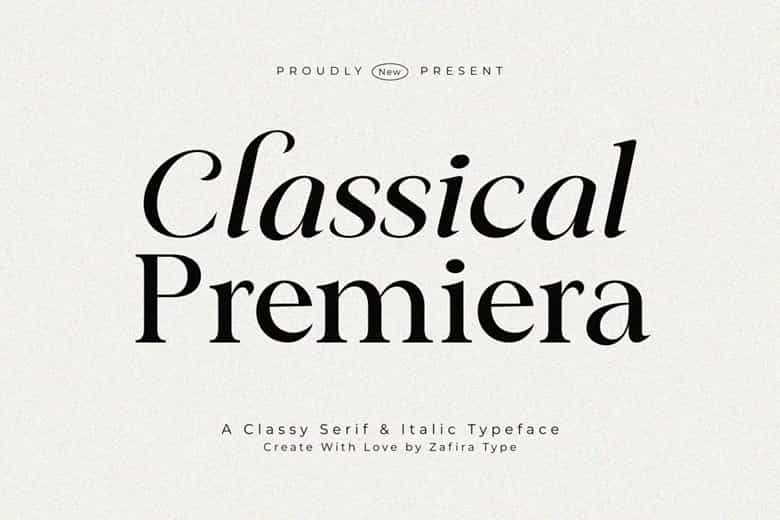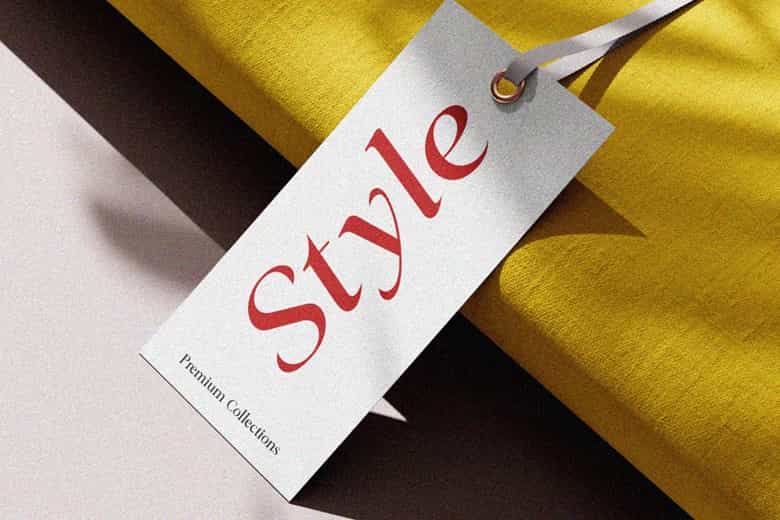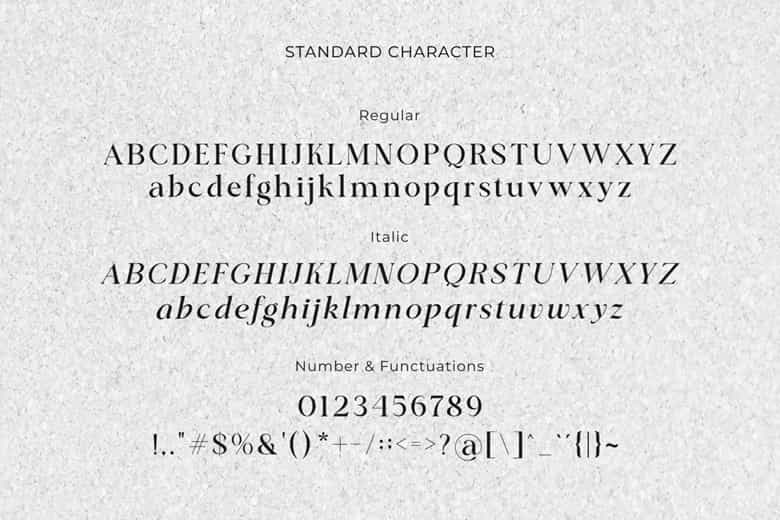
Classical Premiera is two styles of elegant serif font, Regular and Italic. Balanced and bold letter forms lend themselves to using the Regular style for long texts with a more formal style. In the meantime, the Italic style adds that fill of dynamic and artistry that is effective with emphasis or quote. This font exudes the vibe of a classic and sophisticated feel and is ideal for formal and elegant designs.